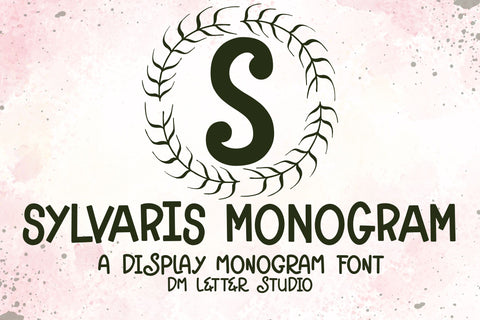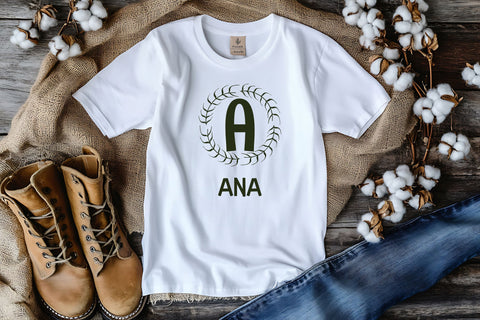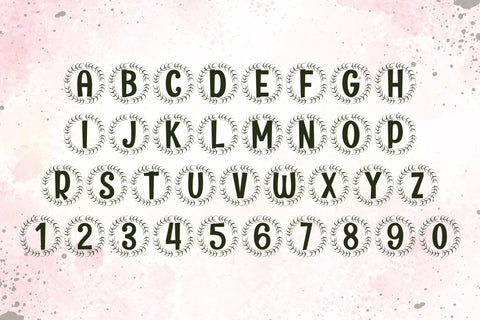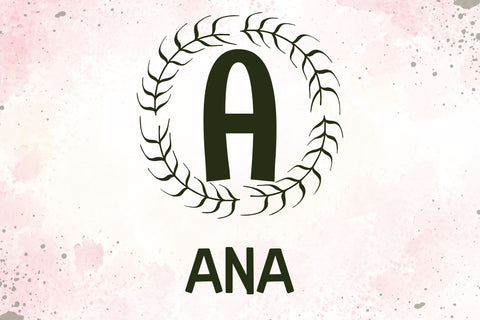
Sylvaris Monogram – Refined Serif Monogram Font with Natural Elegance
Sylvaris Monogram is a elegant serif monogram font inspired by the graceful forms of nature and classical typography. Each letter is designed with a refined balance between strength and softness, making this font ideal for wedding branding, luxury packaging, boutique logos, personalized stationery, and home décor.
The elegant curves of Sylvaris reflect organic motion—like vines or tree branches—while maintaining the structure and legibility of traditional serif fonts. Whether you’re designing for a high-end brand or creating timeless monogrammed gifts, Sylvaris gives your project an upscale and personalized finish.
This font includes a full uppercase character set crafted with monogramming in mind. Every letter carries subtle flourishes and delicate stems, offering just the right amount of decoration without overwhelming your design. It's perfect for engraving, foil stamping, embroidery, and laser-cut crafts, especially when you need a font that combines formality with flair.
With full support for Western European accents, numbers, and punctuation, Sylvaris adapts beautifully to multilingual and global design needs. From wedding signage and invitation suites to product labels and social media templates, this monogram font adds a classy, nature-infused touch to any project.
Elegant serif style with subtle organic curves
Perfect for logos, monograms, wedding designs, and branding
Clean and versatile letterforms for easy crafting and printing
Full uppercase set, numbers, punctuation, and multilingual accents